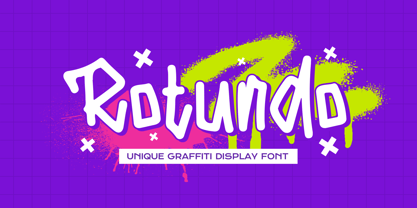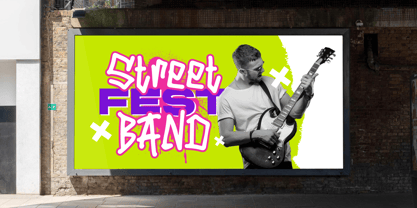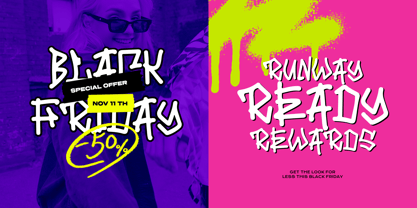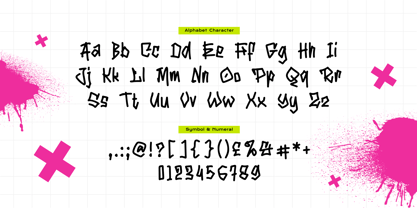
Rotundo
por Imoodev
La familia tipográfica Rotundo fue diseñada por Aulia Savira Putri y publicada por Imoodev. Rotundo contiene 1 estilos.
Rotundo is a energetic graffiti display font that thrives on attitude and street-smart flair. It features exaggerated curves, dynamic brush-like strokes, and playful character alternations that scream urban culture. Perfect for youth-centric campaigns, music covers, streetwear branding, concert posters, fashion promos, youth campaigns, or any creative that needs to shout rather than whisper.
Diseñadores: Aulia Savira Putri
Editorial: Imoodev
Fundición: Imoodev